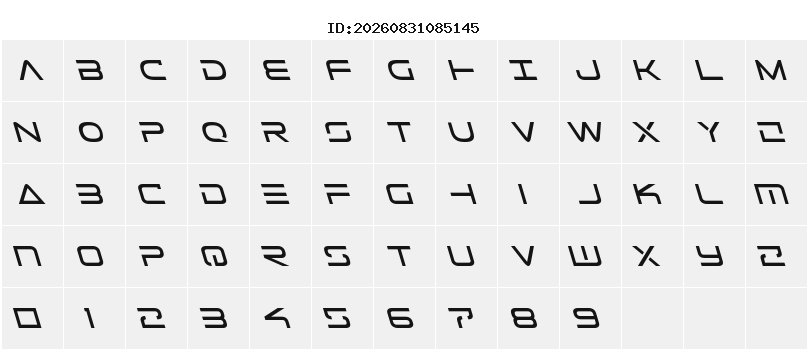
About Tele-Marines Leftalic.ttf
Tele-Marines Leftalic.ttf is a modern, elegant sans-serif font designed for ultimate readability and visual harmony. Perfect for branding, headlines, web design, and print materials.